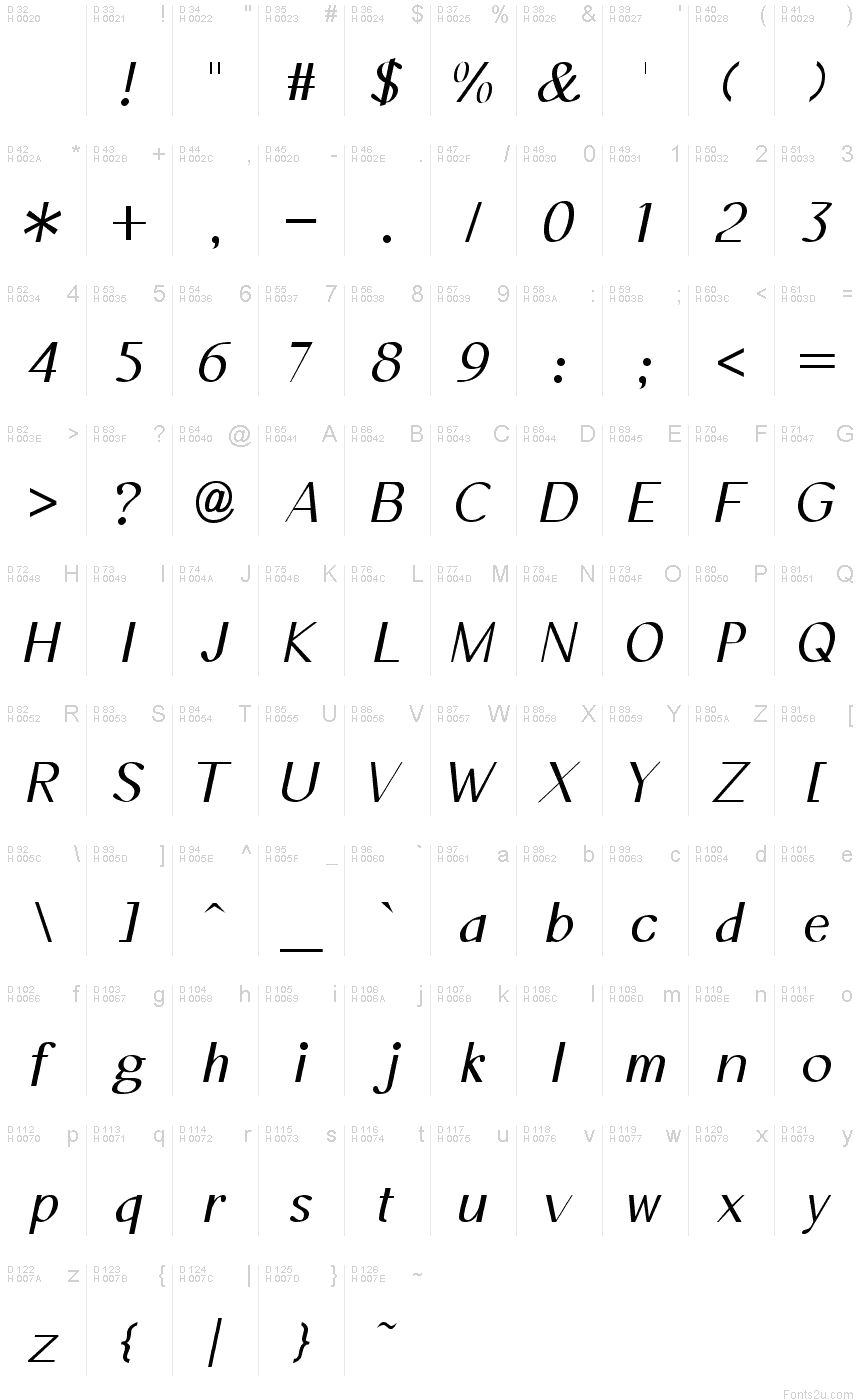
Ballymun RO Italic
Ballymun is a san serif font created by Ronald B. Ogawa in
the spirit of Brinkhurst's statement that one could "write
a humanist letter and leave the serif off."
It contains the Unified Canadian Aboriginal Syllabics as
well as the WGL4 character sets.